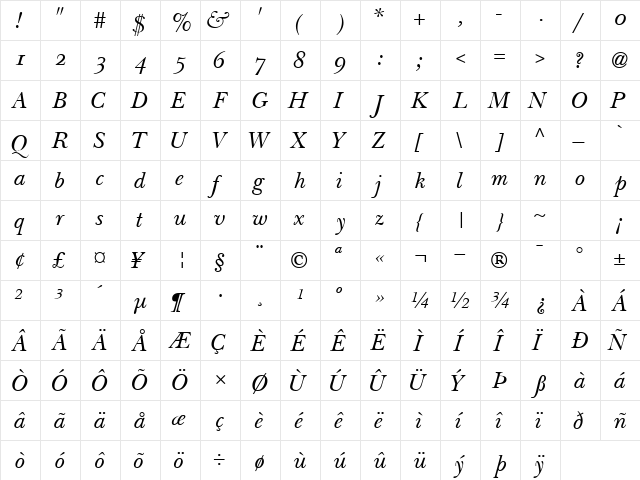
BaskervilleOSSSK Italic Font Preview
BaskervilleOSSSK Italic
BaskervilleOSSSK Italic Font Details
Design Context for BaskervilleOSSSK Typeface
BaskervilleOSSSK takes a measured approach to typography — its balanced proportions and neutral character make it a reliable workhorse for both digital and print work. Its italic angle brings a sense of urgency and motion to the letterforms.